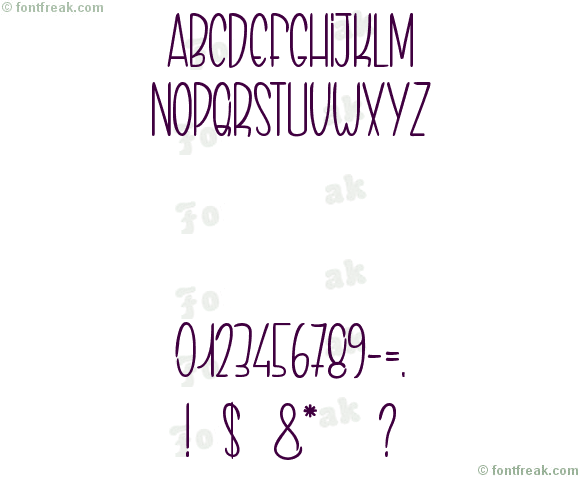
THEBESTTHINGSINLIFEAREFREE
THEBESTTHINGSINLIFEAREFREE by Maelle.K is a unique display font that captures attention with its distinct visual style. Characterized by elongated letterforms and a playful, contemporary aesthetic, this font features a medium stroke weight that ensures readability while maintaining an artistic flair. The contrast in the letters is subtle yet effective, making it suitable for various applications. The spacing is balanced, allowing for a harmonious flow of text, which is particularly appealing in design projects that require a modern touch.
This font is ideal for a range of creative uses. It shines in wedding invitations, where its whimsical nature adds a personal touch to the event. Additionally, it works beautifully for movie posters, lending a fresh and engaging element to promotional materials. Restaurant menus can also benefit from this font, as it conveys a sense of style and sophistication that can enhance the dining experience. Content creators will find it a perfect fit for social media graphics, as its eye-catching design is sure to grab viewers' attention.
What sets this font apart is its ability to blend functionality with creativity. Its distinctive style captures the essence of what makes design exciting, allowing users to express their individuality while maintaining professionalism. Whether it’s for a personal project or a business endeavor, THEBESTTHINGSINLIFEAREFREE stands out as a memorable choice that can elevate any design.